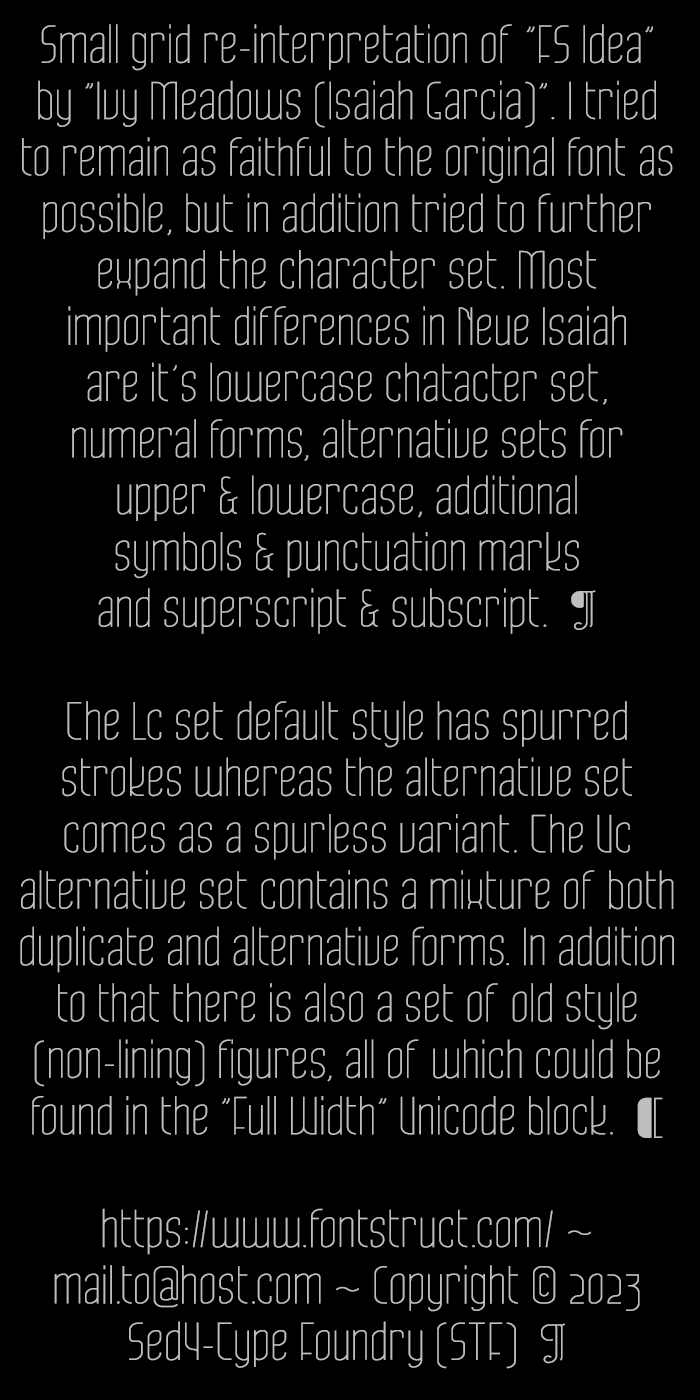
• STF_NEUE ISAIAH - 70's Art Deco / Streamline style typeface
Most of the design credits for this font should go to Isaiah Garcia since I took the liberty of revisiting her fontstruction FS Idea
The one major difference between the two works is the grid size and construction method, Isaiah's version was made using a faux-Bézier approach (very labour intensive) and requires a fairly large design grid, whereas my version is a small grid design, utilizing the circle arc bricks and composites to achieve smoother contour quality, and was done on just a 4x7 grid using 2:2 filter.
This different approach and limitations in small grid designs have led to a number of small changes for certain glyphs. Also have I change some details slightly to my personal preference. But it remains very much Isaiah's design.
I tried to remain as faithful to the original font as possible, and in addition tried to further expand the character set. Most important differences made in my revision are the additional lowercase chatacter set (spurred strokes), the uppercase alternative forms / lowercase alternative forms (spurless) and extra symbols.